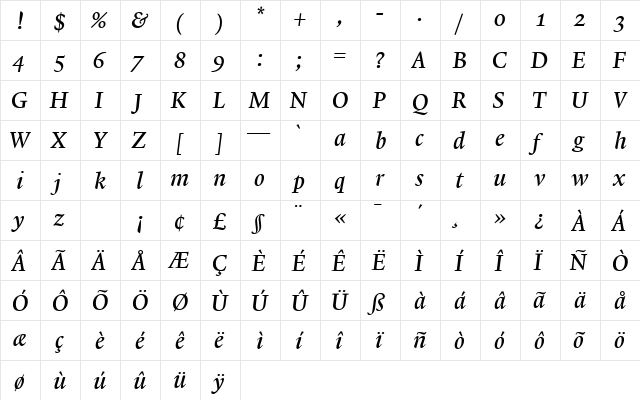
Lexicon No1 Italic B Med Font Preview
Lexicon No1 Italic B Med
Lexicon No1 Italic B Med Font Details
| Style | Italic B Med |
Design Context for Lexicon No1 Typeface
Lexicon No1 takes a measured approach to typography — its balanced proportions and neutral character make it a reliable workhorse for both digital and print work. Its italic angle brings a sense of urgency and motion to the letterforms.